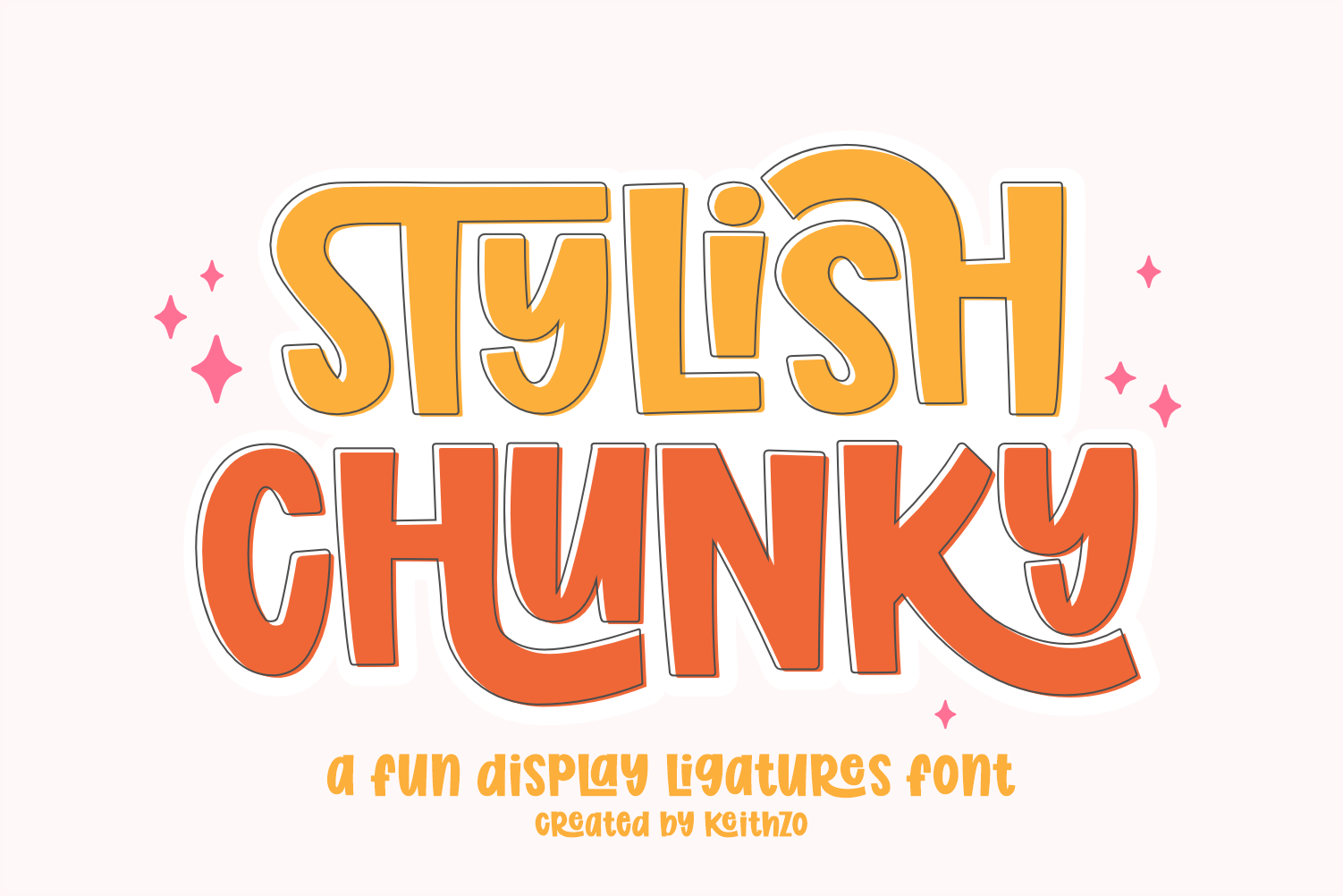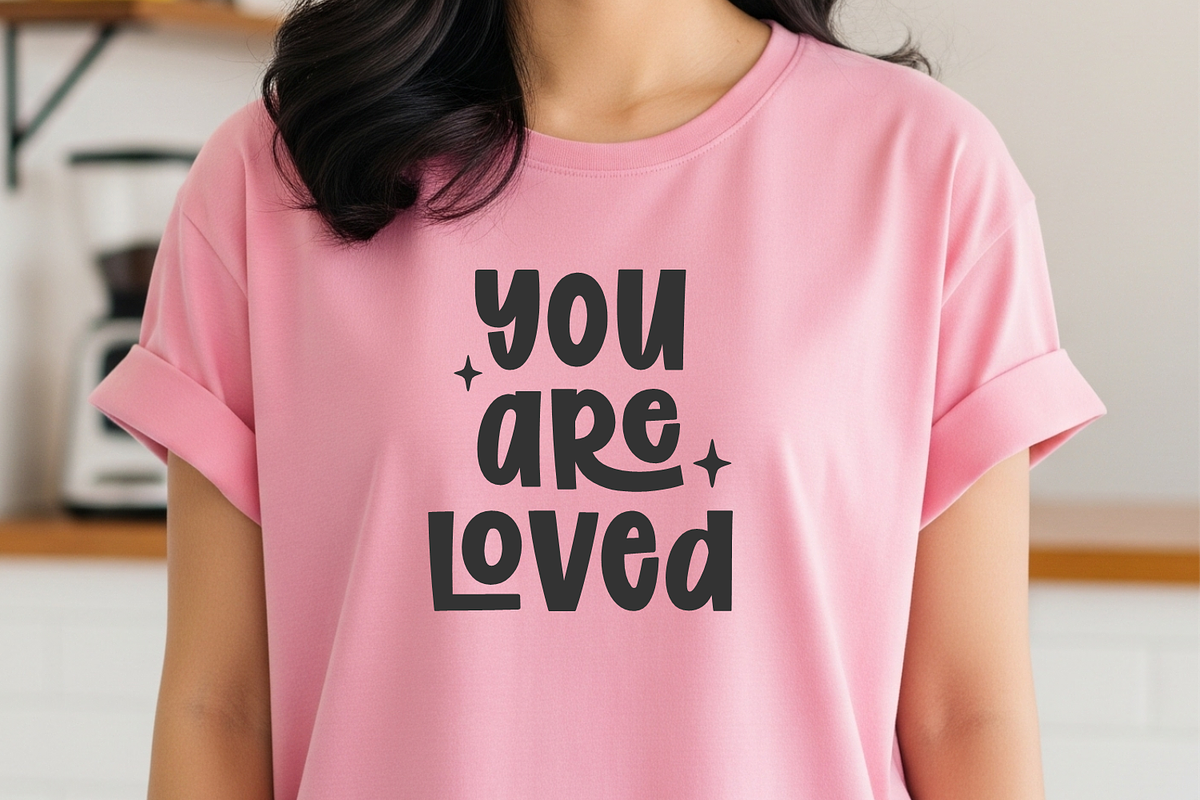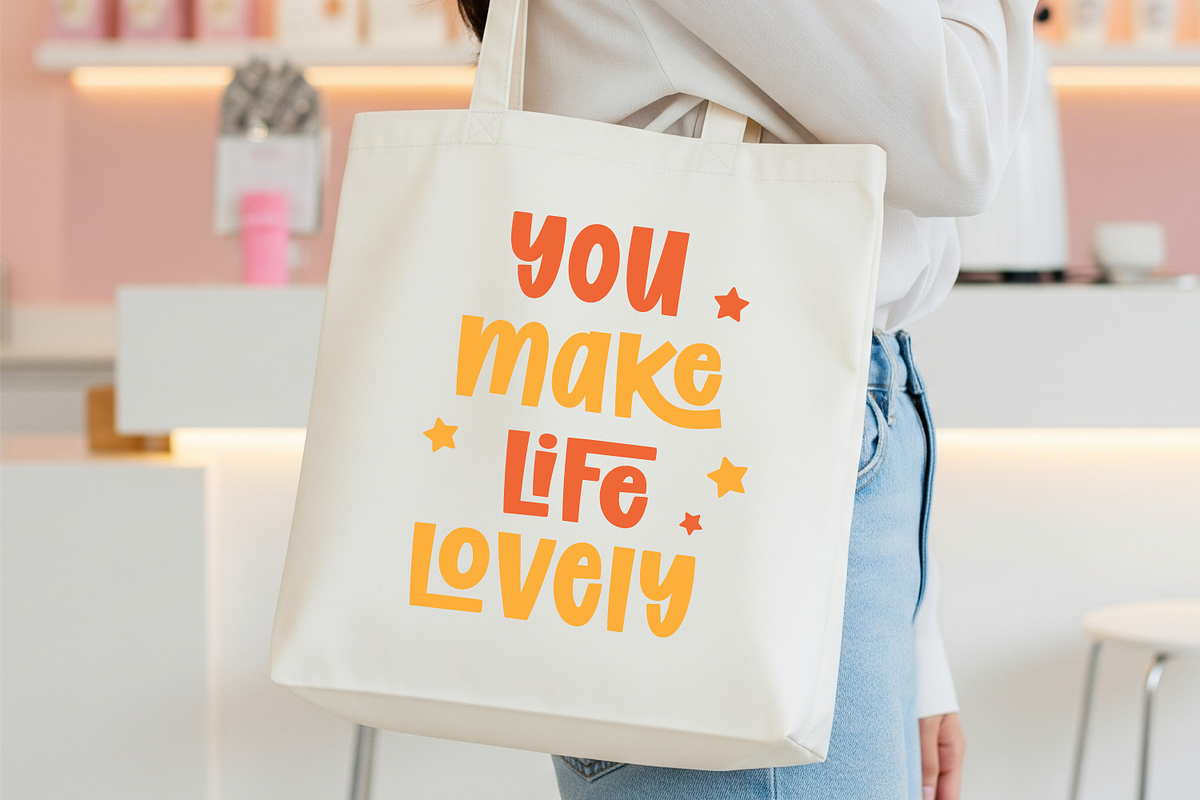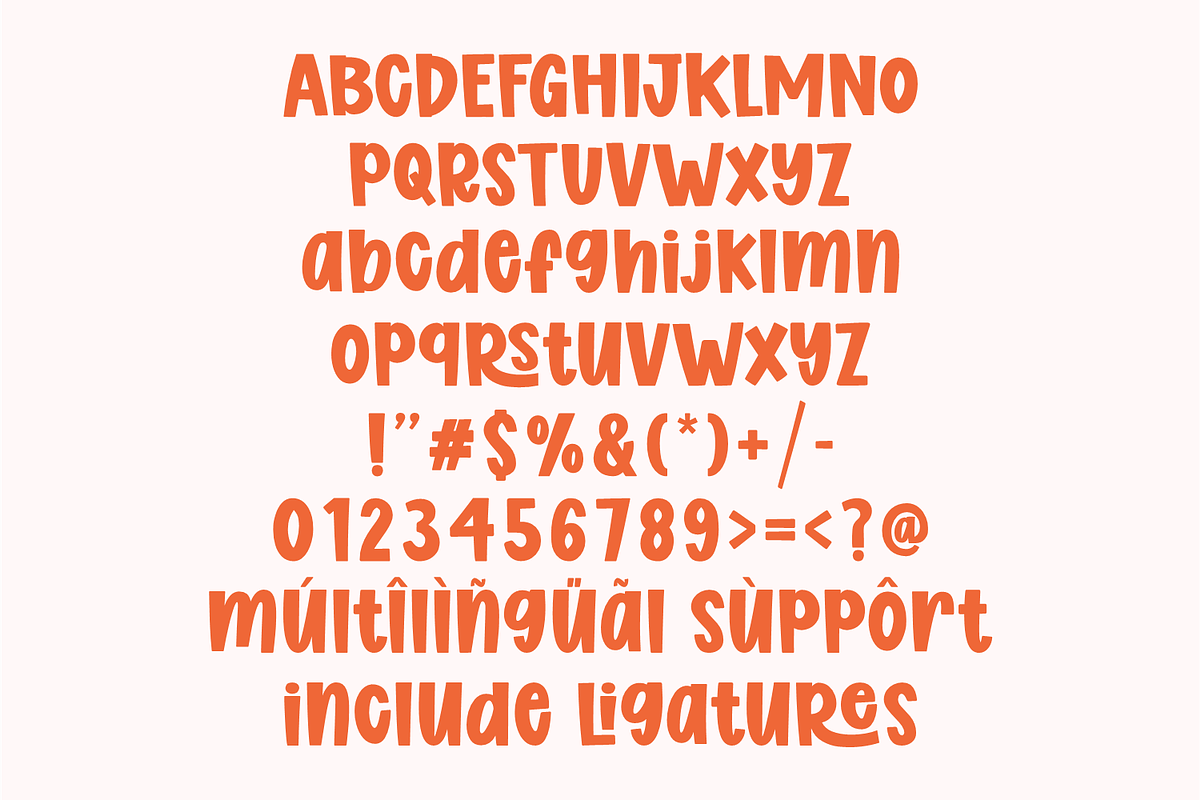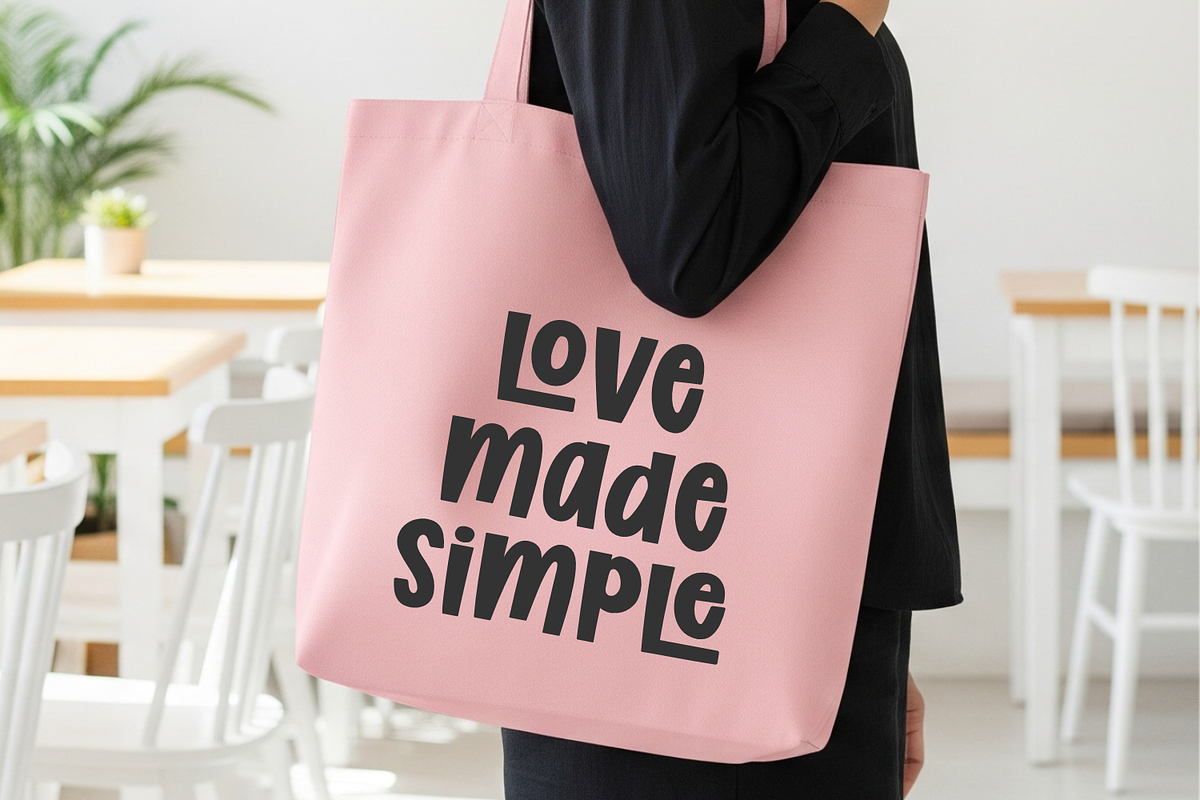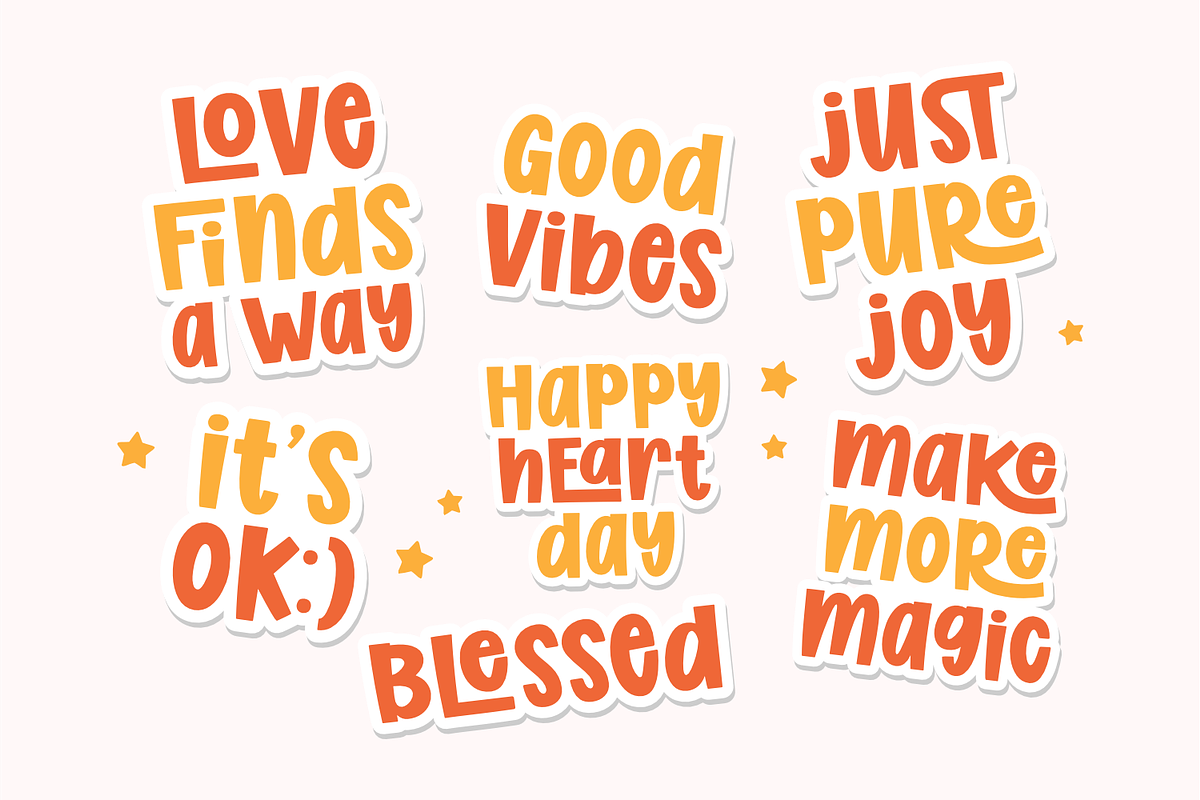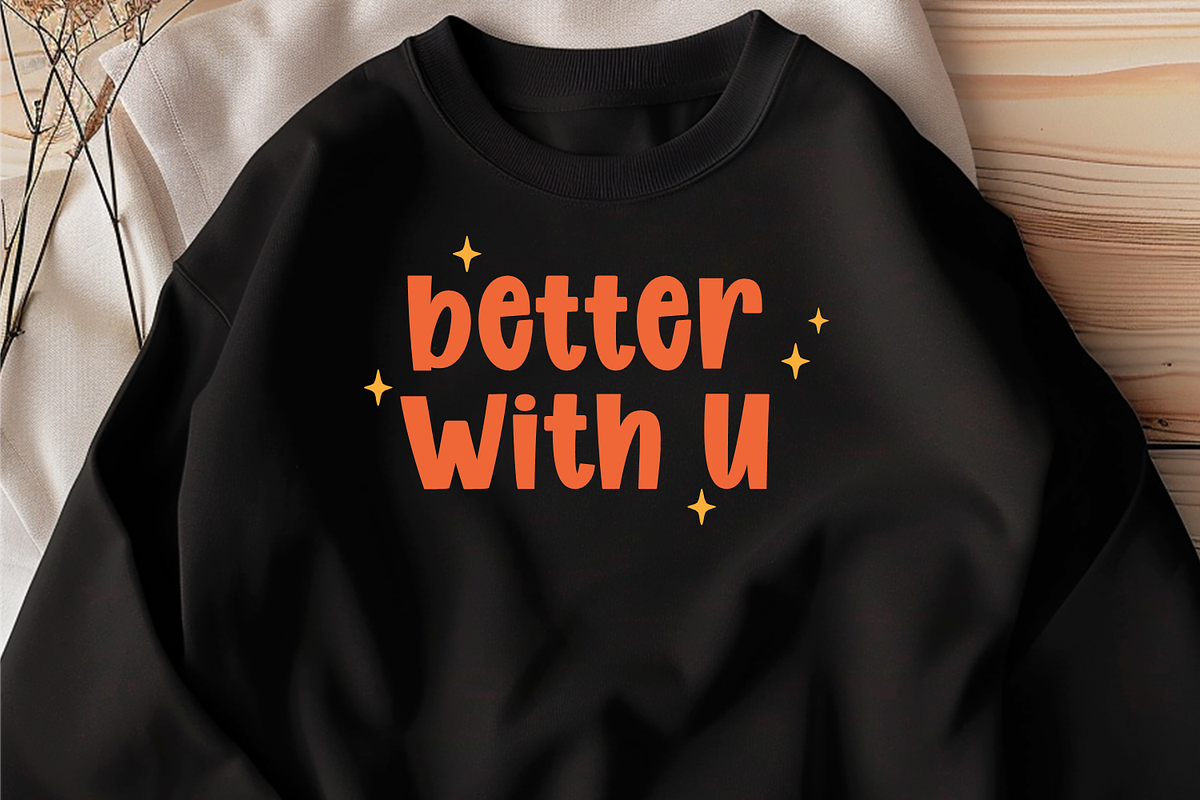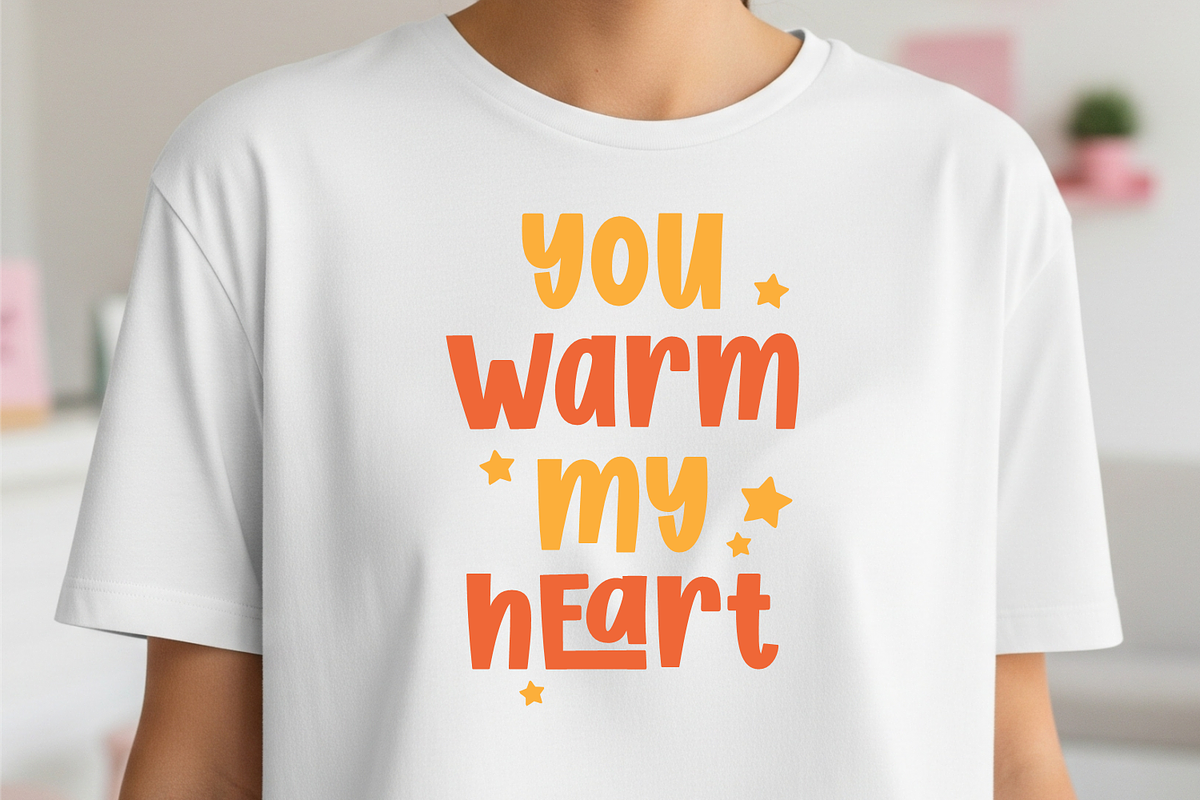
Stylish Chunky - Display Font
Elevate your creative projects with Stylish Chunky, a bold and trendy display font designed to bring a fun, energetic vibe to every design. Featuring thick, rounded curves and a retro-modern aesthetic, this typeface is the perfect choice for making a loud and joyful statement.
What sets Stylish Chunky apart is its built-in creative ligature features, allowing characters to connect seamlessly for a unique, custom hand-lettered look. This makes it incredibly versatile for apparel design, trendy tote bags, stickers, and social media quotes. Whether you are crafting a memorable logo or eye-catching product packaging, its heavy weight ensures your text remains impactful and easy to read.
Supporting multiple languages and including a full set of uppercase, lowercase, and numbers, Stylish Chunky is more than just a font—it’s a complete toolkit for designers who want to add personality and a “chunky” touch to their brand.